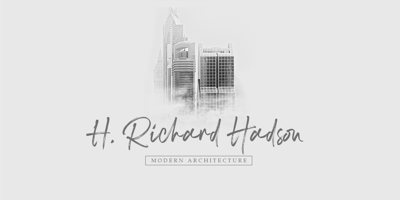
Awesome Lathusca Font is ideal for handmade craft branding, artisan product labels, boutique coffee shop signage, organic food packaging, vintage-inspired wedding invitations, cozy restaurant menus, rustic home decor designs, and authentic small business marketing materials.
What makes Awesome Lathusca Font truly exciting is its genuine handcrafted character that brings authentic warmth and personal touch to every design project. This remarkable typeface features naturally flowing letterforms with organic imperfections that create an intimate, handwritten feel, making it the perfect choice for brands seeking to establish genuine connections with audiences who value authenticity and artisanal quality.
The Awesome Lathusca Font family includes regular, bold, and decorative script variations, complemented by stylistic alternates and ligatures that enhance the natural handwritten appearance, providing designers with extensive options for creating personalized brand experiences and heartfelt communications.
Small businesses and artisan brands will find Awesome Lathusca Font Free Download essential for creating memorable brand identities that communicate craftsmanship and personal care. This versatile typeface excels in both intimate packaging applications and larger environmental graphics, maintaining its authentic handmade character across all contexts.
The font's organic construction demonstrates careful attention to preserving natural writing rhythm while ensuring professional legibility standards. From product labels to storefront signage, this authentic typeface delivers consistent warmth while providing the flexibility needed for diverse branding applications. Creative entrepreneurs appreciate how this font effortlessly communicates genuineness, craftsmanship, and heartfelt American artisan values through superior handwritten typography.